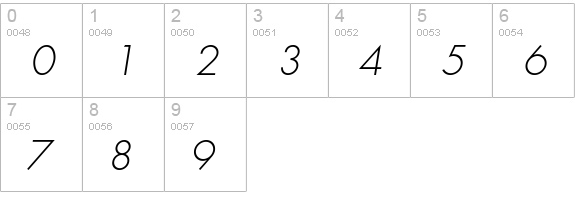
Futura Light Oblique Font Details
Futura Light Oblique is a refined, elegant, italic variant in the Futura typeface family \xE2\x80\x94 well suited to elegant body text, refined sub-headings, and luxury branding.
Futura Light Oblique font is a sleek and modern typeface that exudes sophistication and elegance. Its slanted design adds a dynamic touch to any text, making it perfect for adding a contemporary flair to your designs. The clean lines and geometric shapes of Futura Light Oblique give it a timeless appeal that is both versatile and eye-catching. This font is ideal for a wide range of design projects, from branding and advertising to editorial layouts and web design. Whether you're looking to create a professional and polished look or a fresh and modern aesthetic, Futura Light Oblique is sure to elevate your design to the next level. Best of all, Futura Light Oblique is available for free download at FontsMarket.com. This means you can easily access this high-quality font and incorporate it into your projects without any cost. Don't miss out on the opportunity to enhance your designs with the sleek and stylish Futura Light Oblique font today!